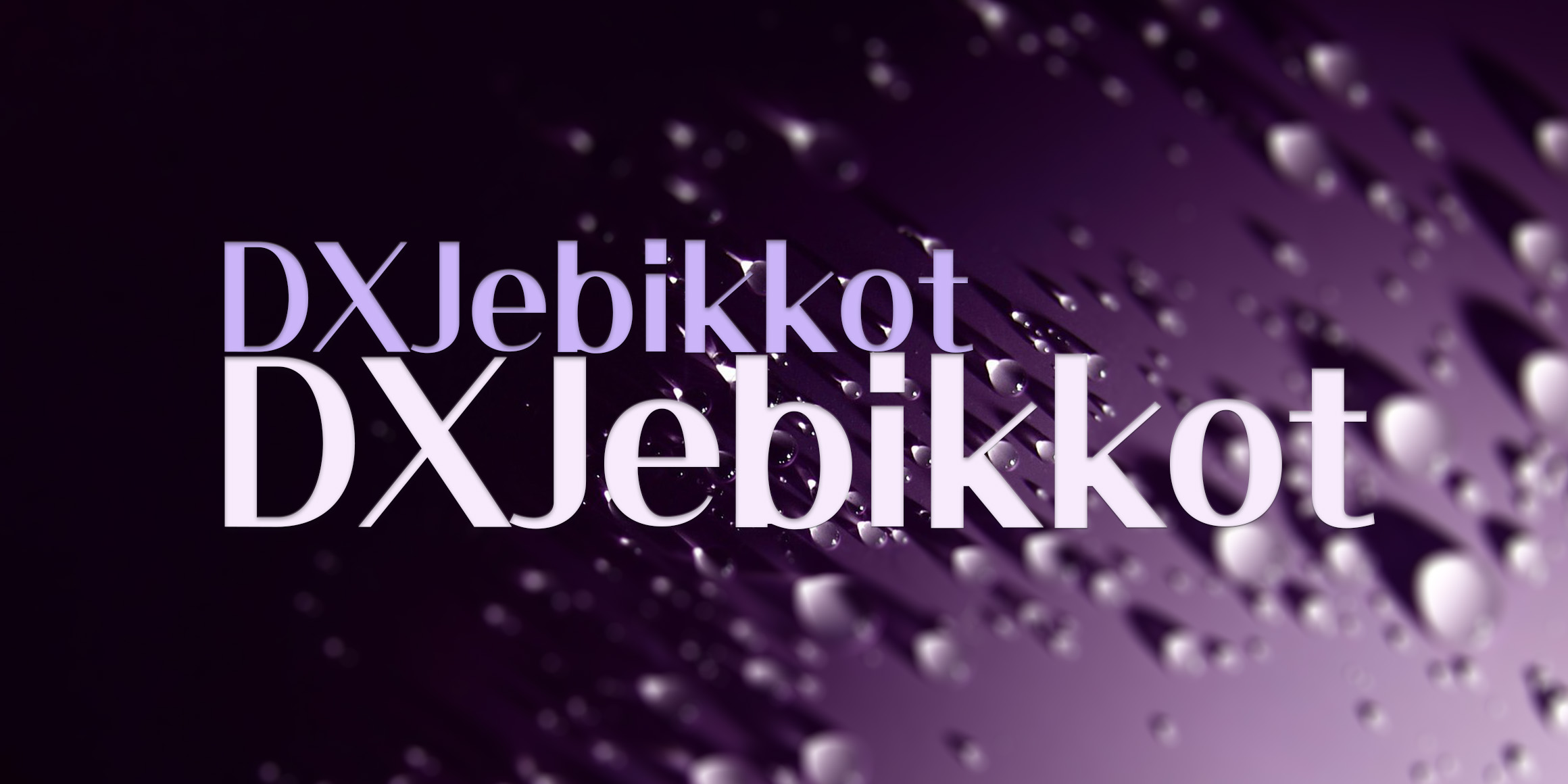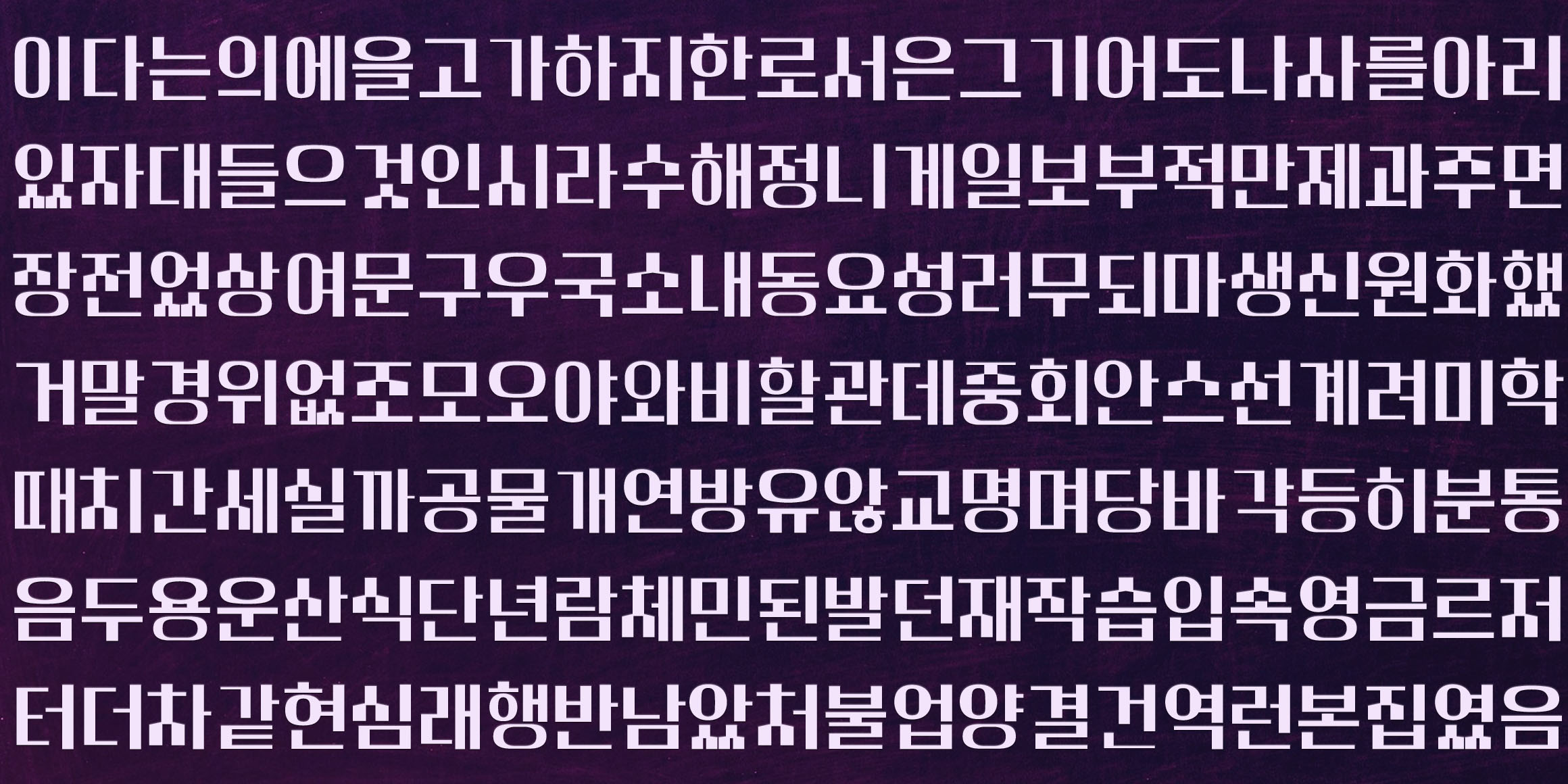
DXJebikkot
Violet body applies aesthetic elements like the flower word "humility and innocent love".
It is a font that stands out for sophistication by giving a lot of thickness differences between horizontal and vertical.
The characteristics of the shape are also clearly differentiated from existing fonts by utilizing the individuality of ㅅ, ㅊ, and 보여, so it will fit well if used for advertisement copy or title.
• DX제비꽃 / DXJebikkot